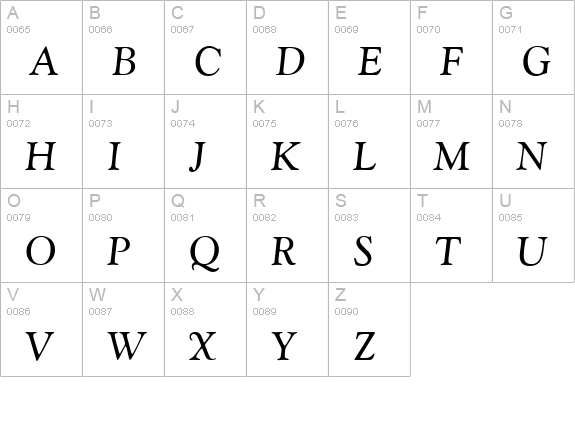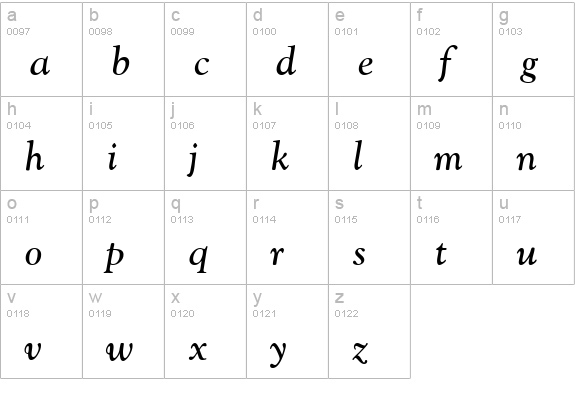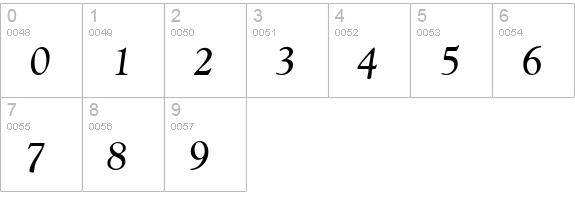
G790-Roman-Italic is a distinctive, italic variant in the G790 typeface family \xE2\x80\x94 well suited to design and typography projects.
The G790-Roman-Italic font is a sleek and modern typeface that exudes elegance and sophistication. Its italicized design adds a touch of flair to any project, making it perfect for both formal and creative applications. This versatile font is ideal for branding, advertising, and editorial design projects, as it strikes the perfect balance between professionalism and style. The G790-Roman-Italic font is available for free download at FontsMarket.com, where you can easily access this high-quality typeface to enhance your designs. With its clean lines and classic aesthetic, this font is sure to make a statement and leave a lasting impression on your audience. Upgrade your typography game with the G790-Roman-Italic font and take your projects to the next level.